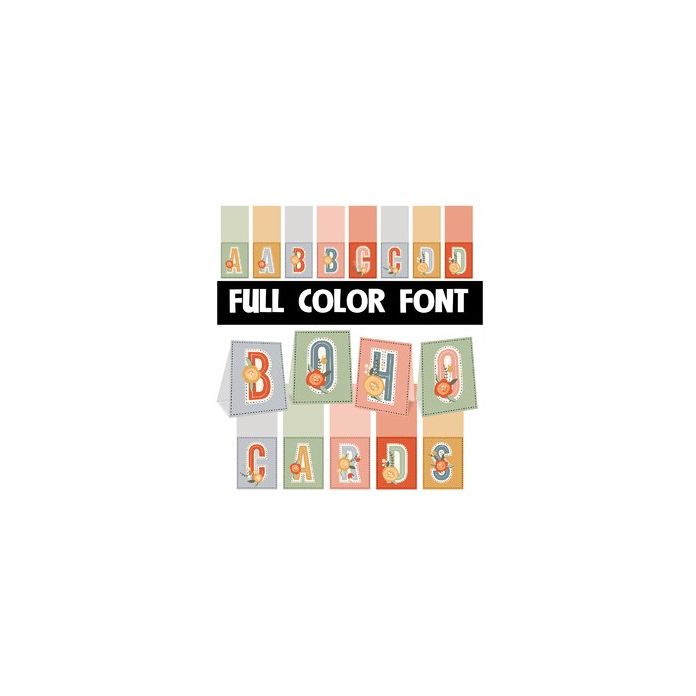
This full-color font features beautiful fall-colors and florals on cards you can fold in half. This font works best for titles, displays, posters and more. Please note color fonts will show as black in non compatible programs. This font type is compatible with Silhouette Studio.